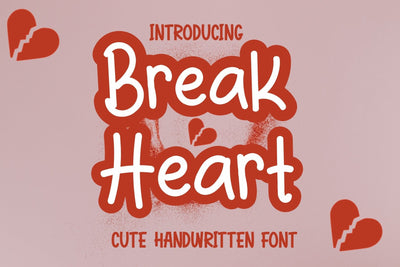
Break Heart - Handwritten Font
"Break Heart Handwritten" is a natural handwritten font that captures the essence of authentic penmanship. With its flowing and organic letterforms, this font emulates the beauty and imperfections of human handwriting. Whether used for projects, greeting cards, or digital artworks, "Break Heart Handwritten" adds a genuine and heartfelt touch to your designs, making them feel unique.